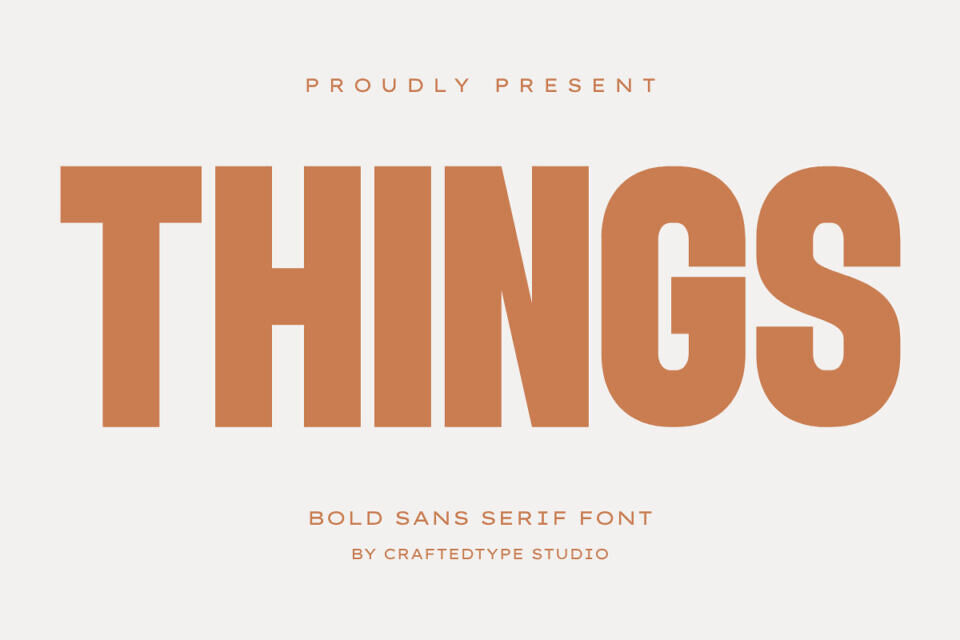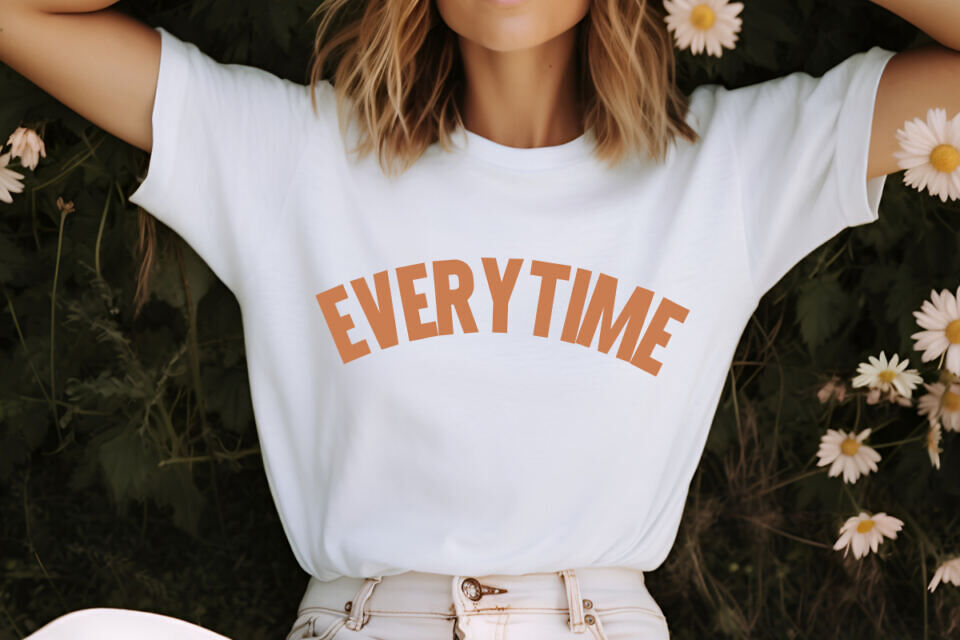
Things is a sleek and stylish bold sans serif font designed for creators who value clean aesthetics and strong visual impact. With its tall, balanced letterforms and elegant spacing, this font is perfect for Print On Demand projects like t-shirts, posters, mugs, and tote bags, as well as for film titles, branding, logos, and modern packaging.